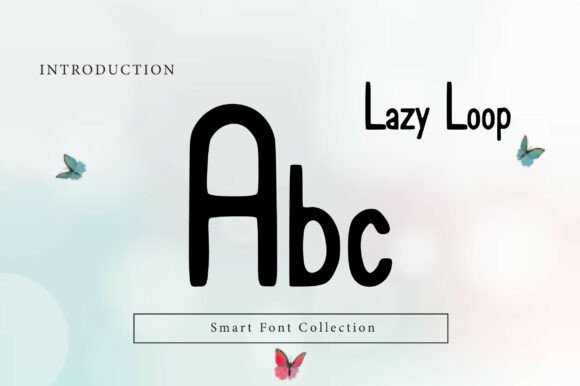
Introduction to Lazy Loop Font
Take a deep breath and embrace the relaxed, casual charm of the Lazy Loop font.
This typeface is defined by its elongated ascenders and loose, loopy letterforms that suggest a leisurely afternoon of journaling The Lazy Loop typeface manages to be tall and slender while maintaining a cozy, informal feel.
Key Features of Lazy Loop Font